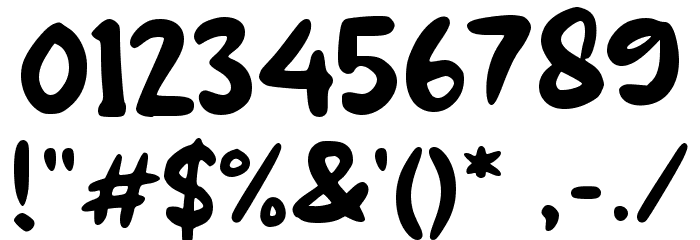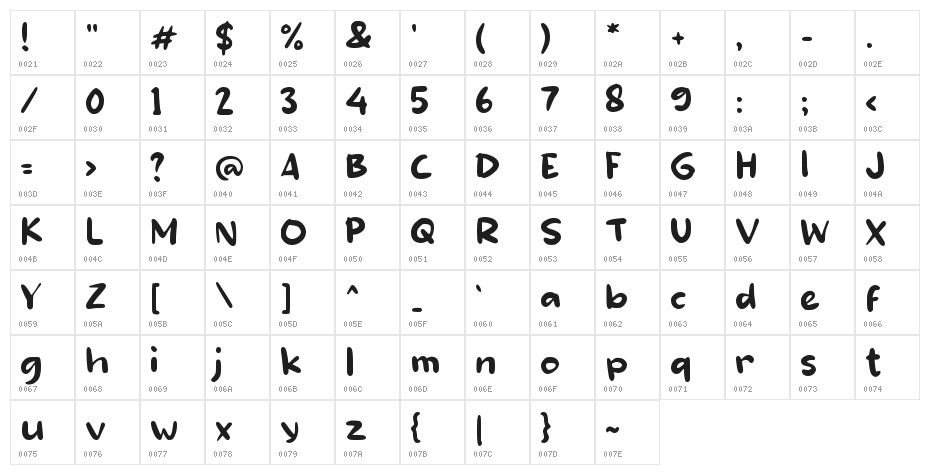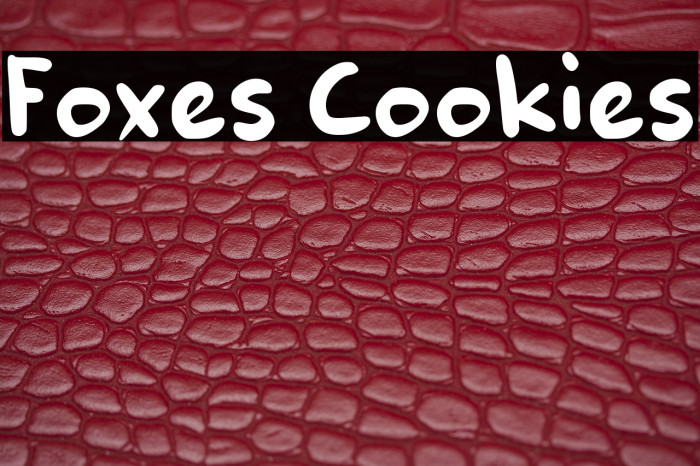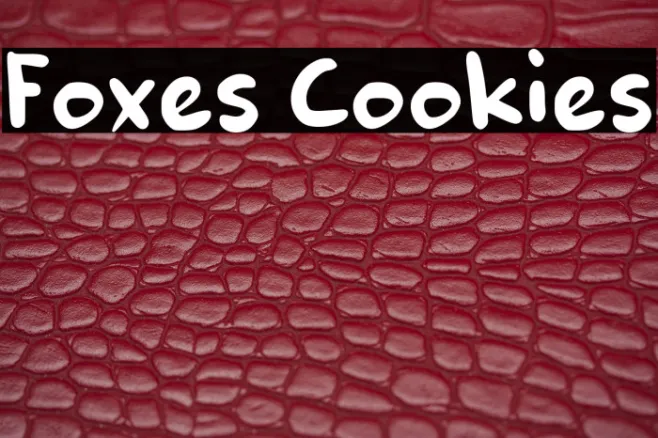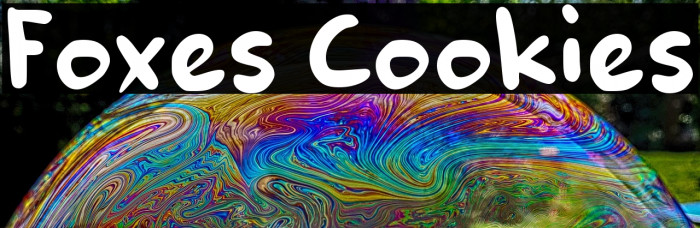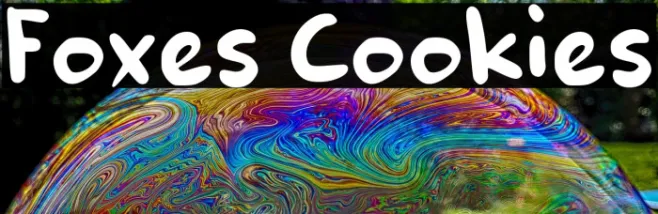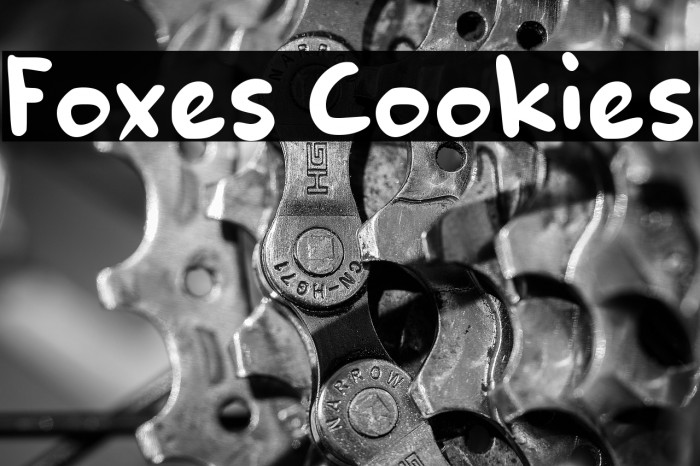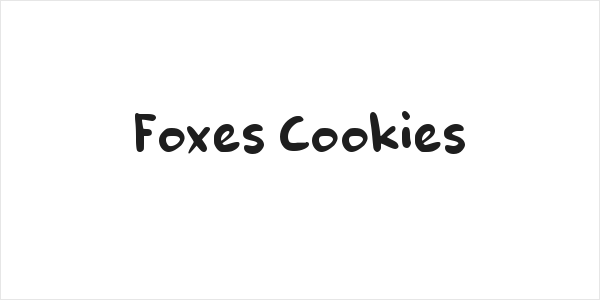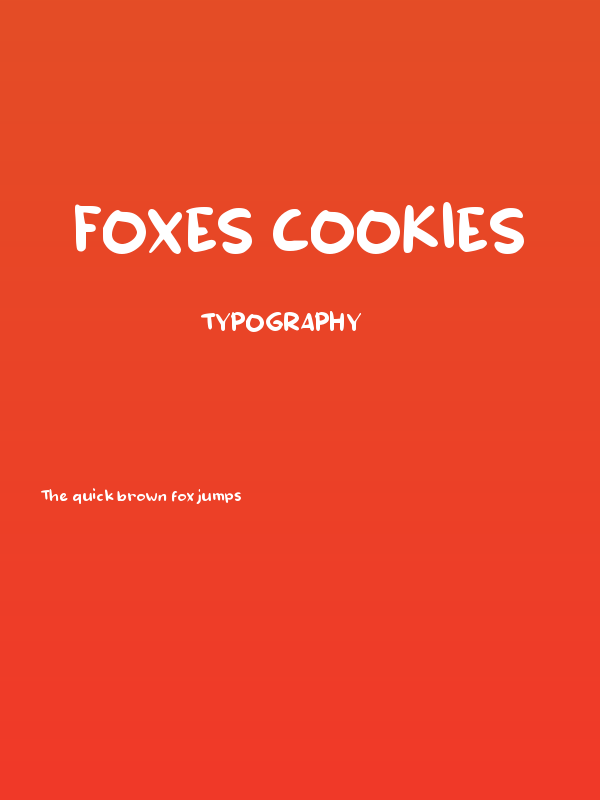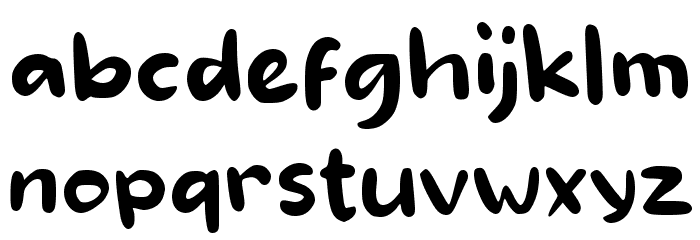
Foxes Cookies Font
Foxes Cookies Description
This playful and whimsical font features rounded, bold characters with a hand-drawn appearance. The letters have a casual and friendly vibe, making them ideal for projects that require a touch of fun and creativity. The strokes are consistent in width, giving the font a uniform look, while the rounded edges add softness and approachability. The numbers and special characters maintain the same playful style, ensuring a cohesive look across all text elements. This font is perfect for designs that aim to convey warmth and friendliness.
| Use Case | Headlines, Logos, Casual Text |
| Proposed Projects | Ideal for children's books, playful branding, greeting cards, and casual invitations. |